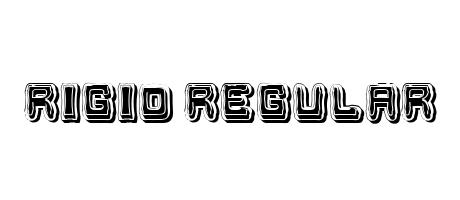
Rigid
Rigid Regular is a bold, sans-serif typeface with a distinct, extruded appearance. Each letter has a strong, shadowed outline, giving it a three-dimensional, almost embossed effect. The design is geometric and clean, yet the added depth adds a touch of playful energy. It's a font that would stand out in a title or headline.